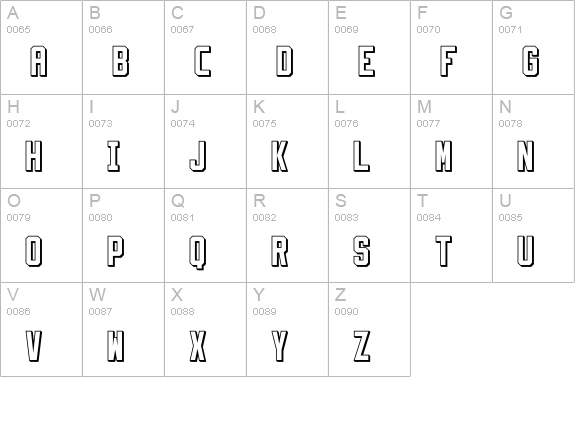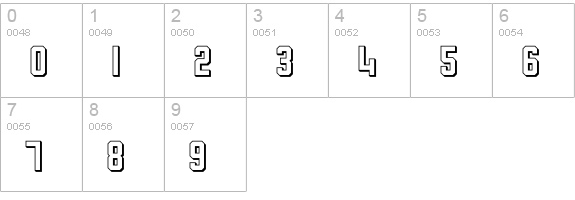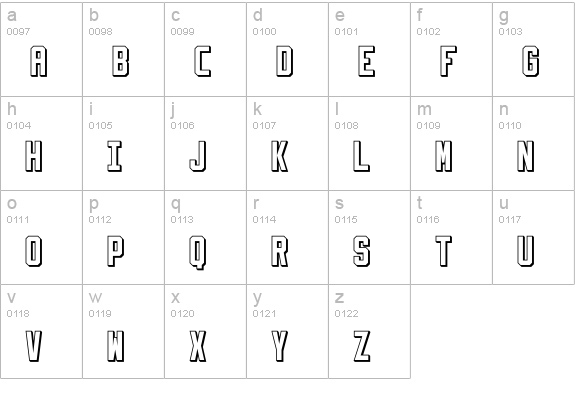
Slimfit Shadowed is a modern and stylish font that exudes elegance and sophistication. Its slender and sleek letterforms are expertly crafted, creating a sense of refinement and grace. With its subtle shadowed effect, this font adds depth and dimension to any design project. Whether you're working on a logo, branding materials, or a captivating headline, Slimfit Shadowed is the perfect choice to make a lasting impression. Its clean lines and balanced proportions make it versatile and suitable for a wide range of applications. This font's unique combination of slim letterforms and shadowed effect adds a touch of intrigue and allure, making it stand out from the crowd. It effortlessly combines classic elegance with a contemporary twist, making it a timeless choice for any design project. The best part? Slimfit Shadowed is available for free download at FontsMarket.com. You can easily access this stunning font and enhance your creative projects without any cost. Don't miss out on this opportunity to elevate your designs with Slimfit Shadowed's unparalleled sophistication and style. Download Slimfit Shadowed today and unlock a world of possibilities for your design endeavors. Let this font be the finishing touch that takes your creations to the next level.